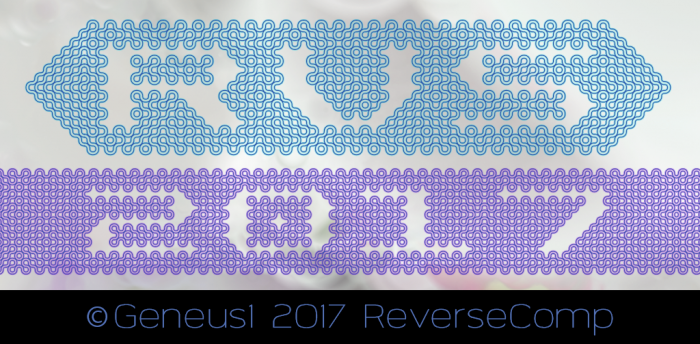
• A font formed out of Truchet Tiles.
Truchet tiles are formed by taking a single tile composed of opposing quarter circles, then applying its inverse in a random fashion. Here, I've inverted the tiles to create outlines, then developed the negative aspects of the letters, thus creating a reversal of a reversal! Boom! Now you're in the third dream level of Inception.
I hand you a gift-wrapped gold medal for patience. This is too complex to investigate so I just sit back and let it flow in with something from Yautia in my headset. 11/10
Love the detail!
Intriguing patterns that make the letters breathe.
Congratulations on the Honorable Mention :) I don't know what I can add, those loops are simply magnificent. How to integrate visual balance in a very complex structure and maintain legibility .....
Exquisite lacework. Congratulations. 10/10